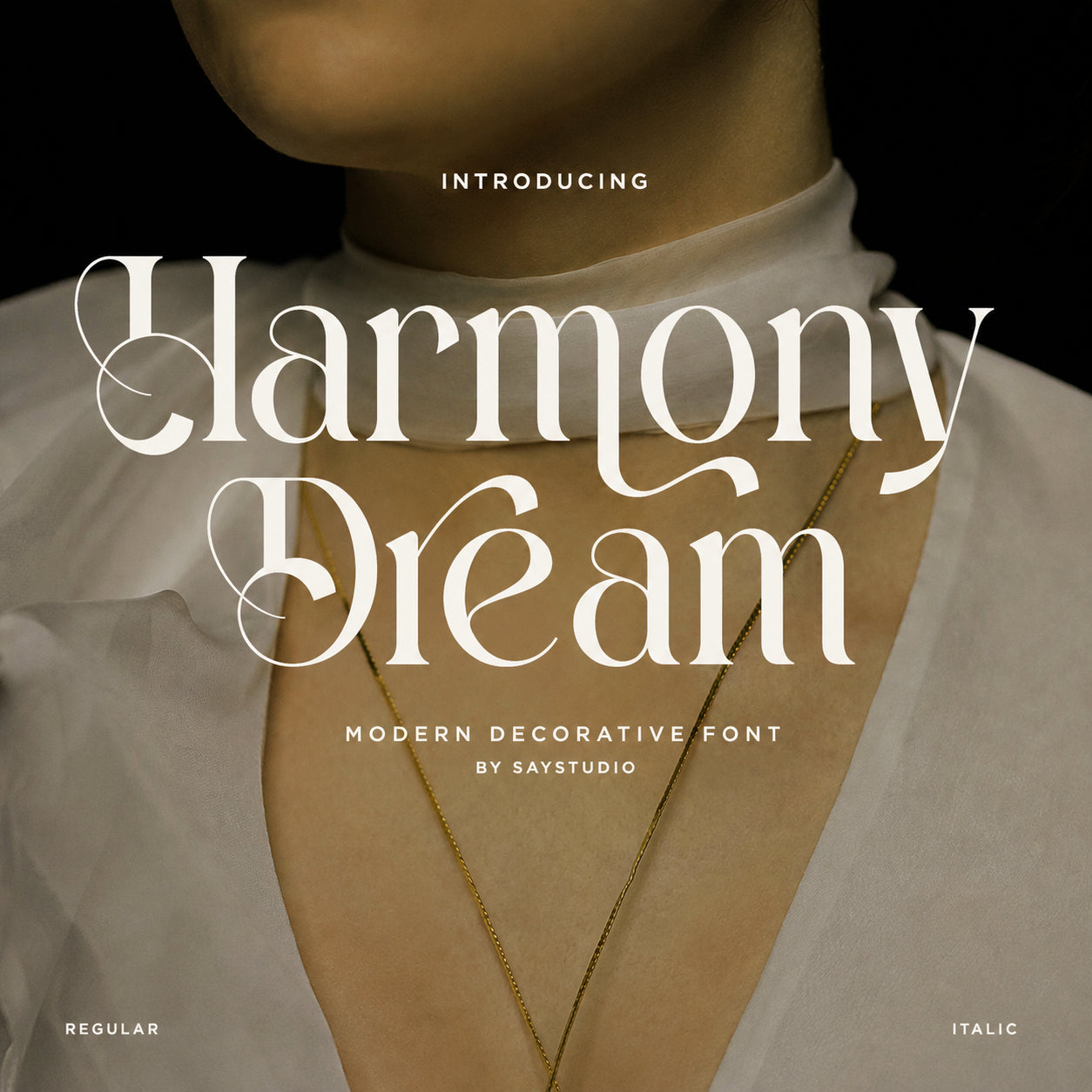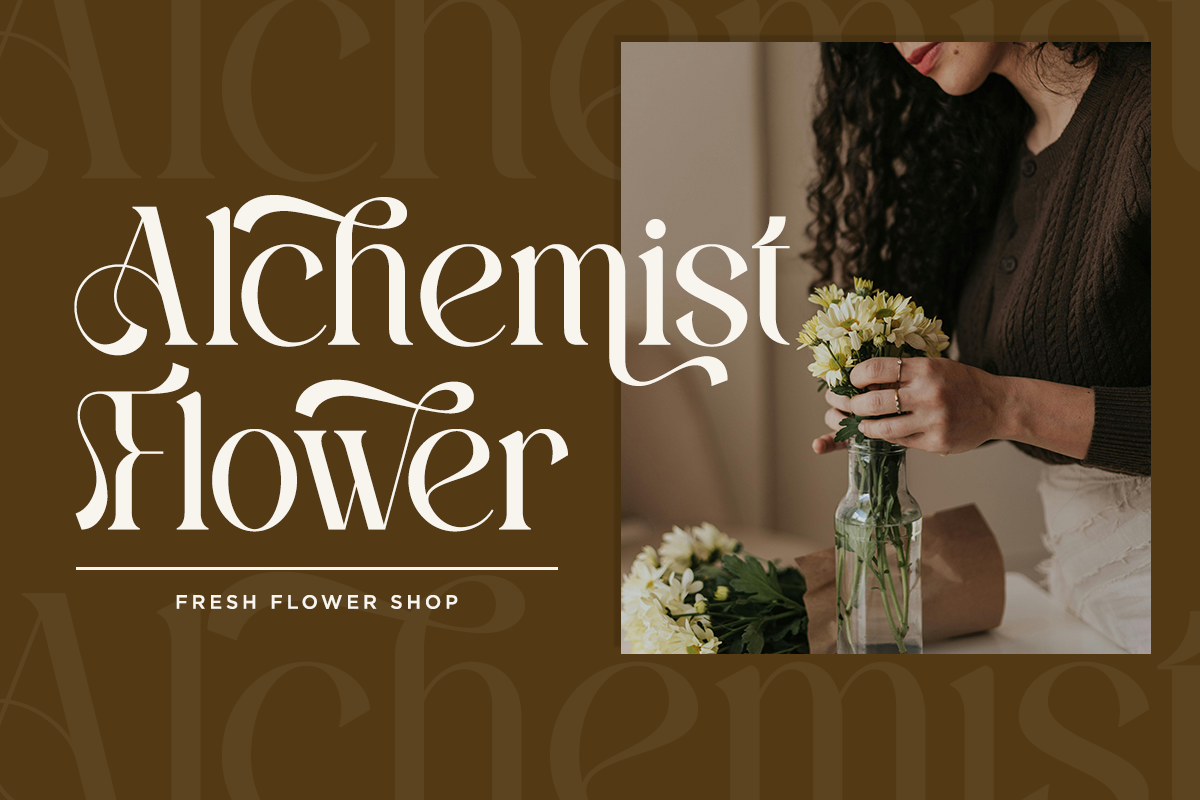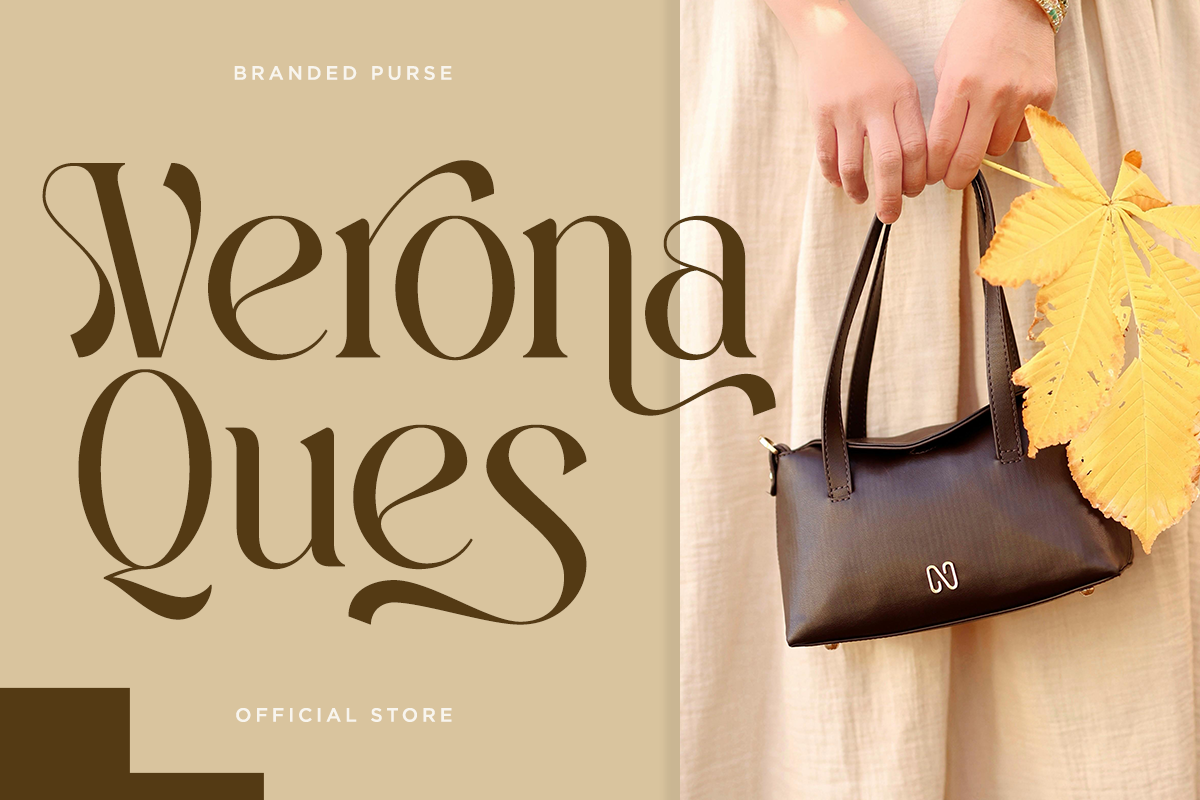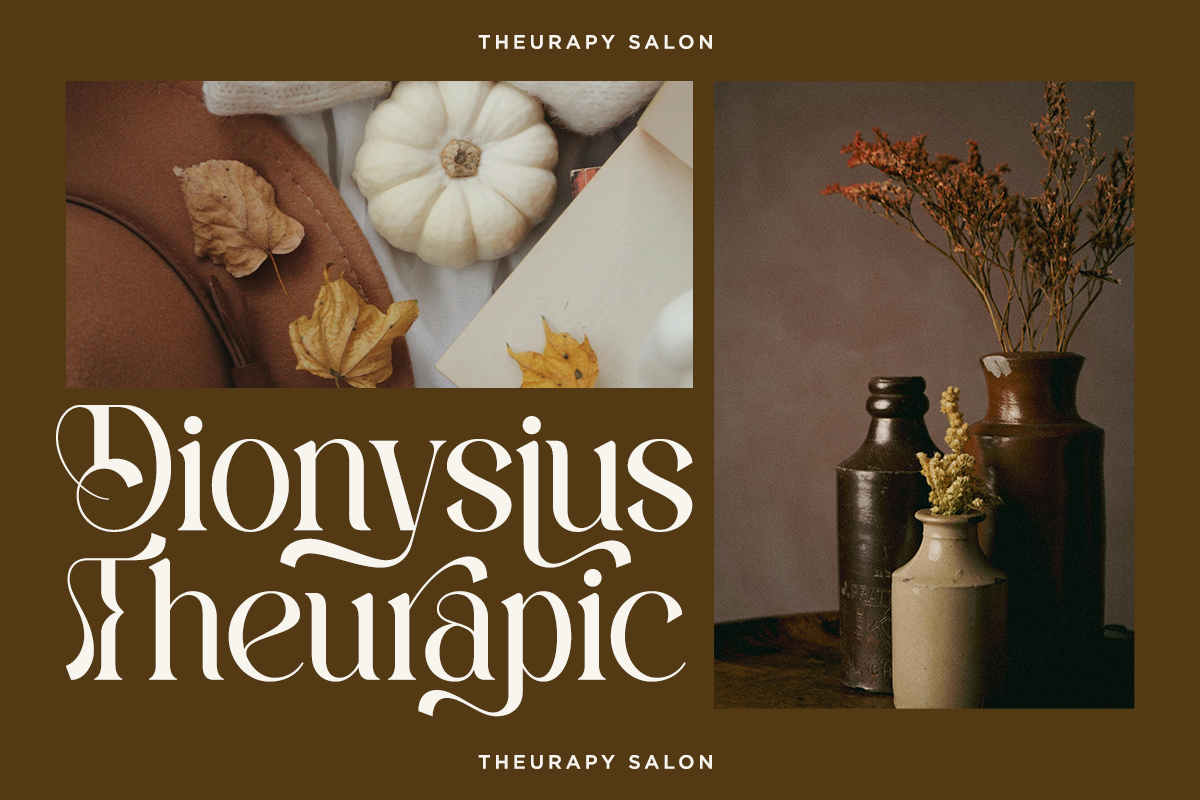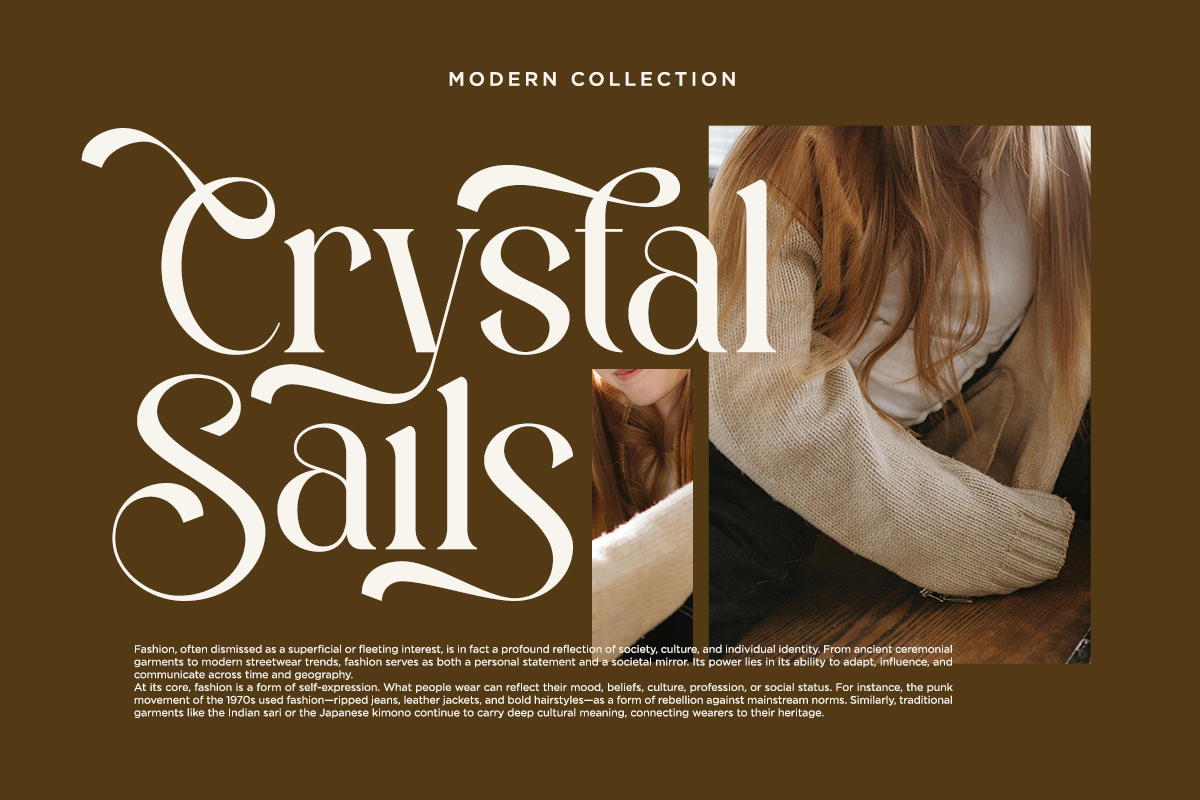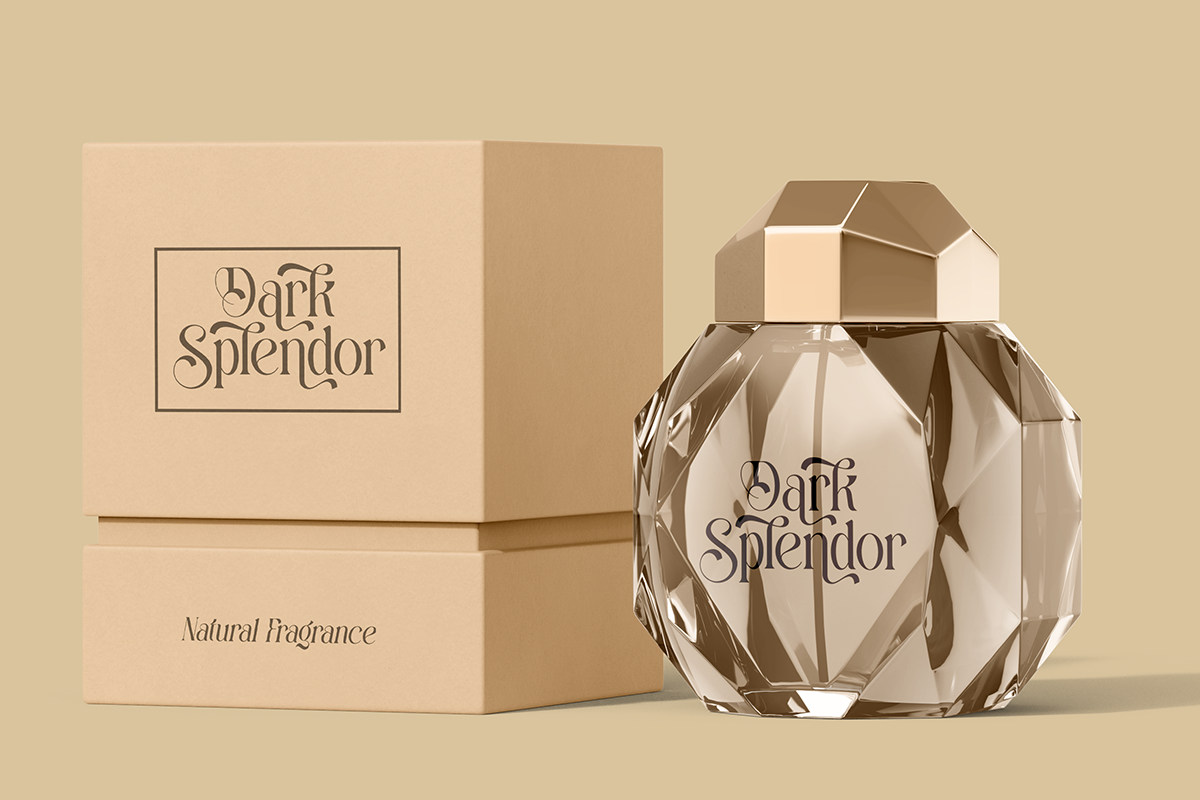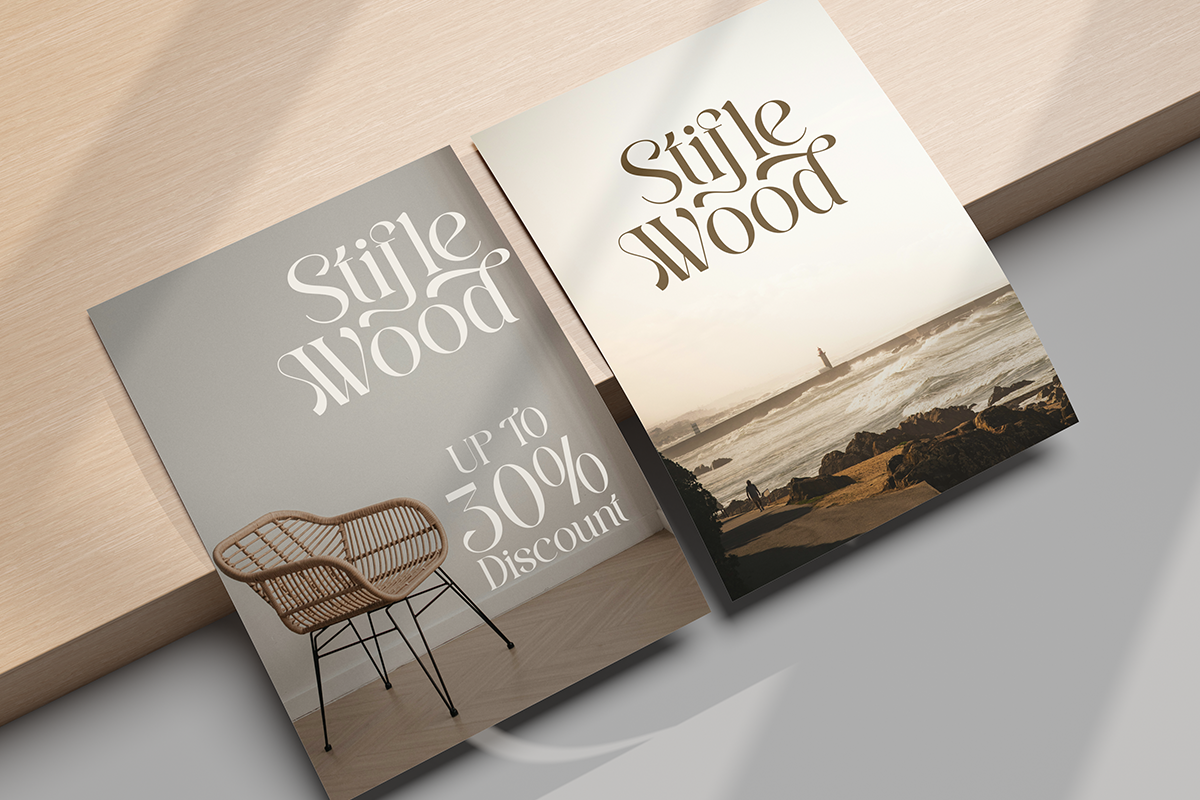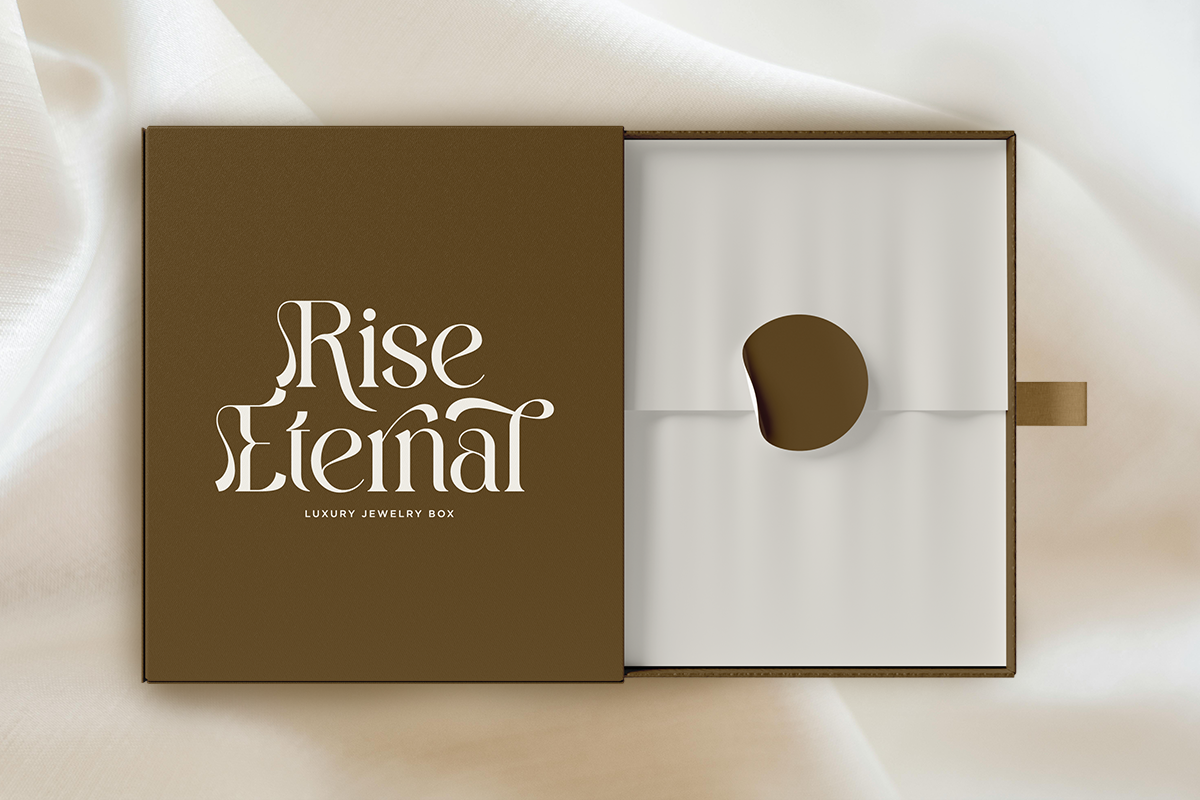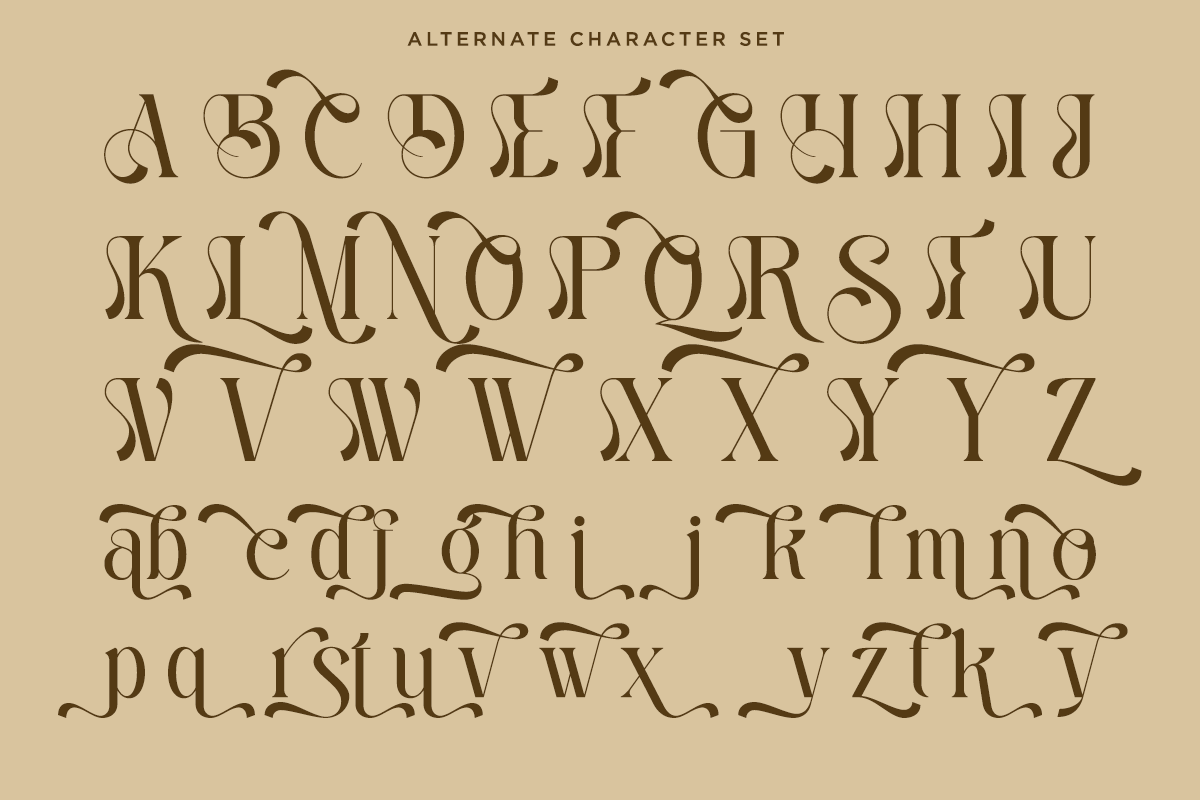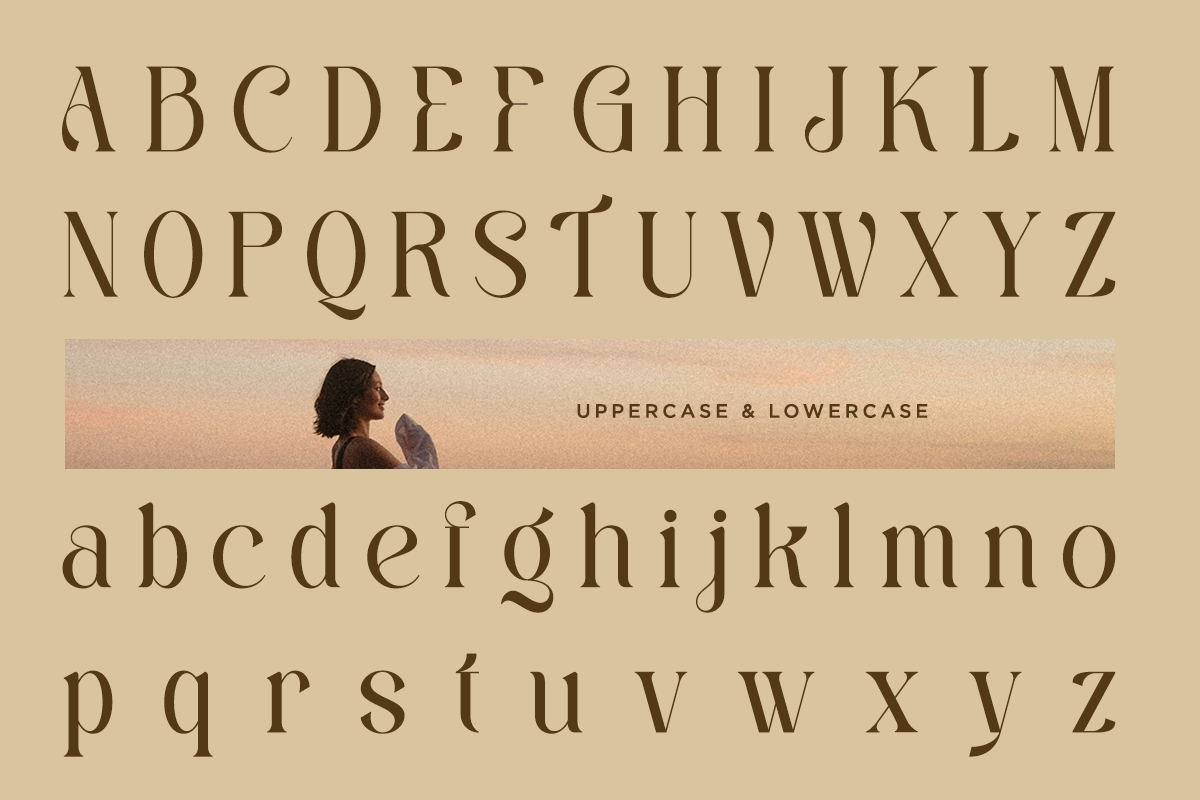
Harmony Dream - Luxury Decorative Serif Font
Harmony Dream is elegant decorative serif font with sophisticated display typeface designed to bring a luxurious and artistic touch to your creative projects. Featuring high-contrast letterforms, distinctive curves, elegant swashes, and a refined vintage-inspired aesthetic, this font is perfect for creating memorable visual identities.
Its graceful and ornamental character makes it ideal for luxury branding, fashion editorials, beauty products, perfume packaging, wedding invitations, magazine covers, boutique logos, product packaging, posters, social media designs, and elegant advertising.
Designed for impactful headlines and sophisticated typography, this decorative serif font combines classic elegance with a modern editorial feel. Its expressive uppercase and lowercase characters provide versatility for both prominent titles and stylish supporting text.
Perfect for designers looking to create a premium, romantic, feminine, vintage, editorial, or high-end aesthetic, this typeface adds an instantly polished look to any composition.
Stylistic Alternates
Harmony Dream is a decorative serif display font featuring high-contrast letterforms, swashes, and stylistic alternates in Regular and Italic styles. The package includes uppercase and lowercase characters, numbers, symbols, punctuation, multilingual support, and OTF, TTF, and WOFF file formats.